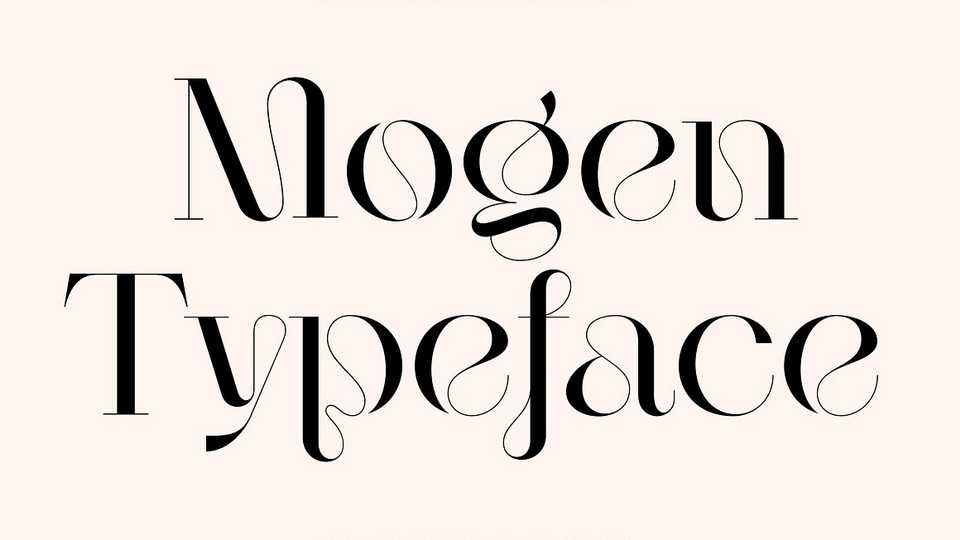
Download Mogen font, a display serif typeface with a modern yet luxurious style. Aesthetic and unique letterforms, as well as soft curves and wild shape of the letters make Mogen font so iconic.
Designer: Letteralle Studio